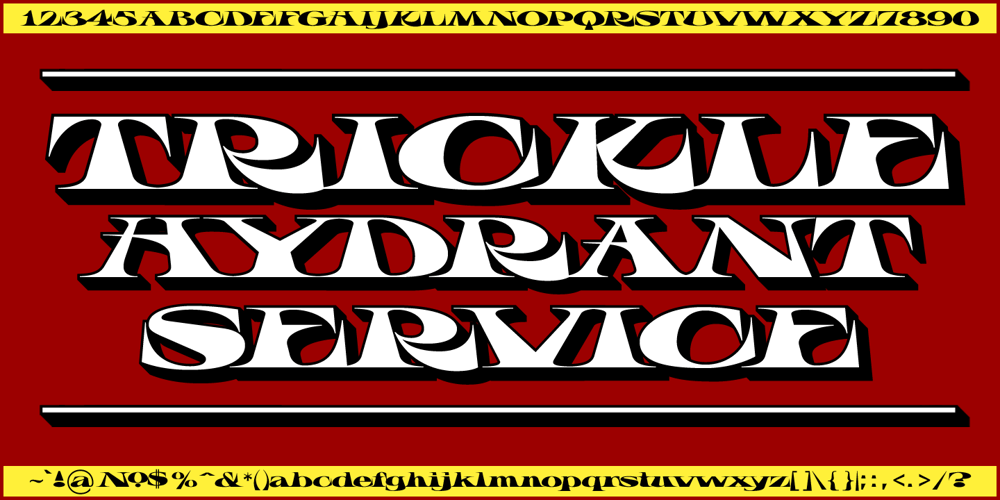
FWD Egyptian Tower Font Family was designed by David Parr and published by Fontwright Design. FWD Egyptian Tower contains 4 styles and family package options. FWD Egyptian Tower is a designers stack-able Display family best purchased as one package. The four versions can be manipulated in your favorite graphics or sign making application to achieve the different effects as shown in the font family ad designs. All fonts are tightly spaced and are very often intentionally overlapped creating a balance for each very unique wider bottomed character. Being stack-able, the designer can duplicate the original text layer and by changing the font on the lower of the two layers to another of the family can then add another available effect. This can be repeated to add other of the available effects. Then by converting the text of the lower text layers to curves or outlines and welding the characters of the words together, the overlaps can be eliminated. This process is fairly common practice for a graphic designer and quite easy once done a few times.